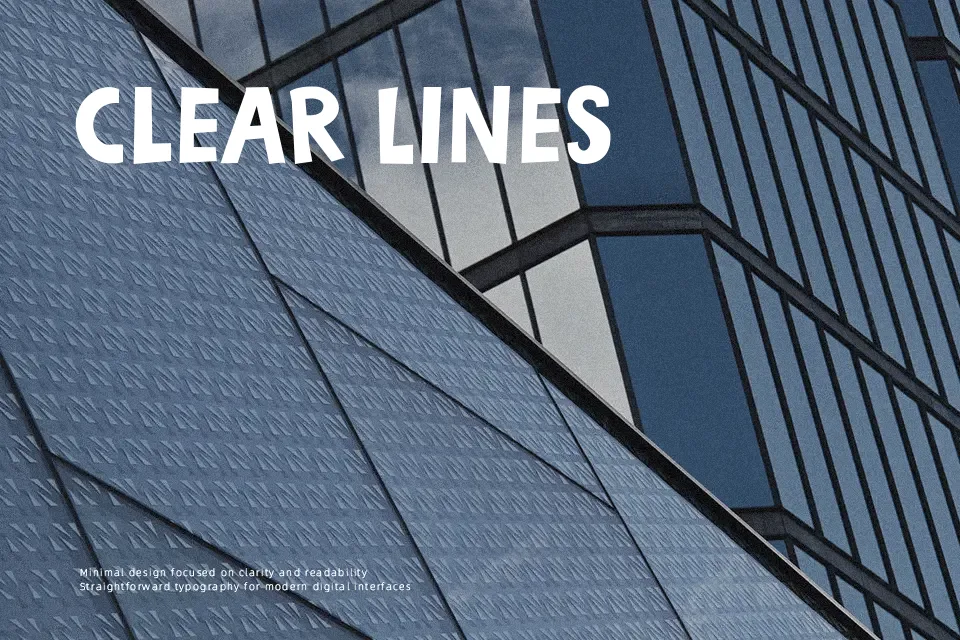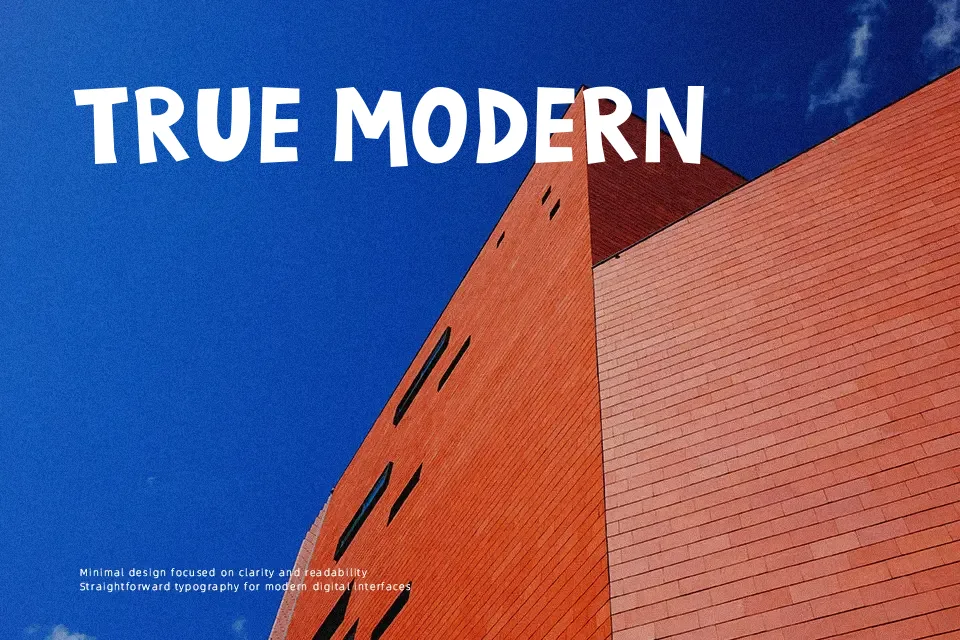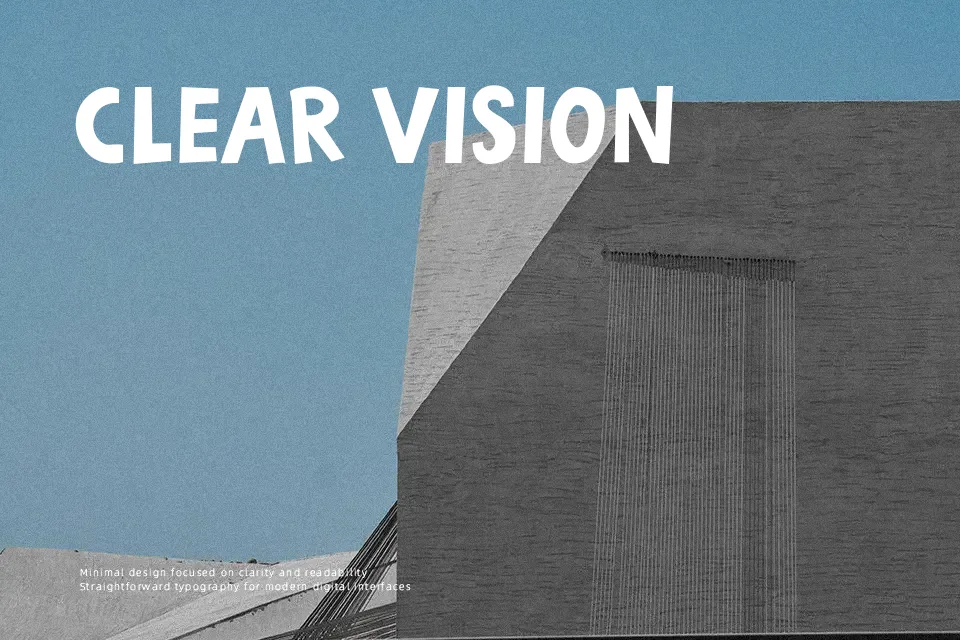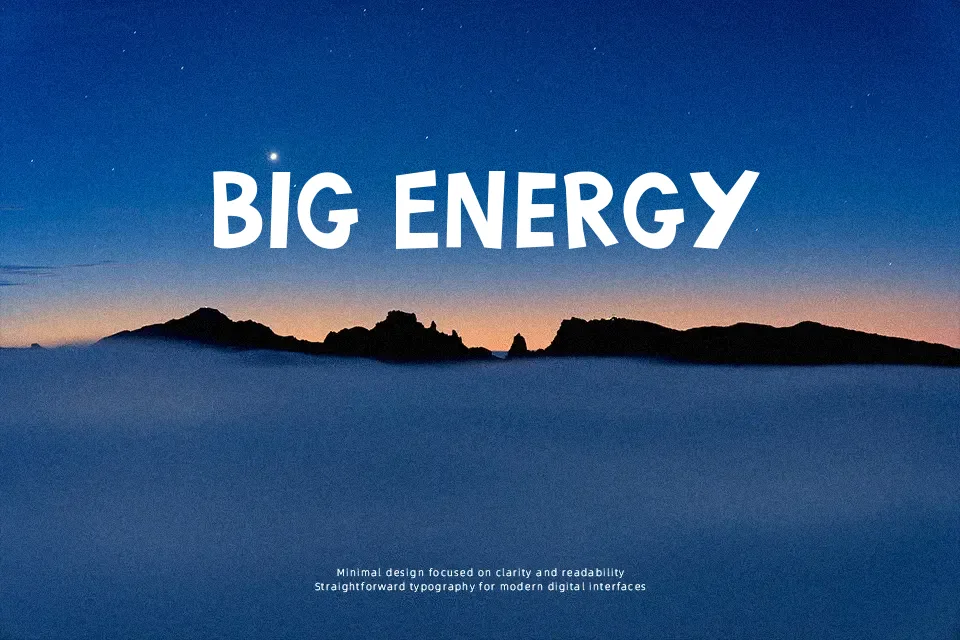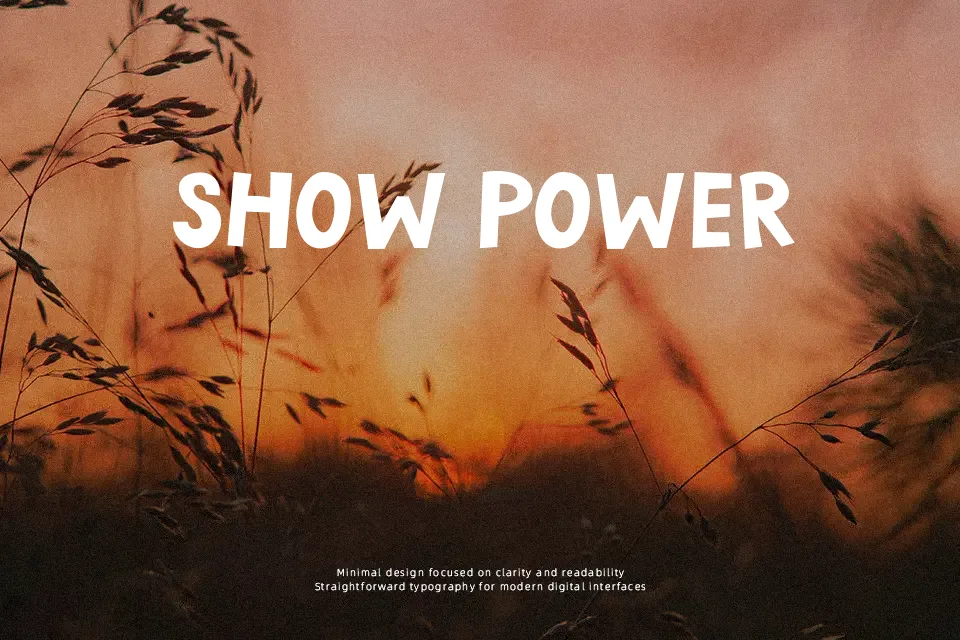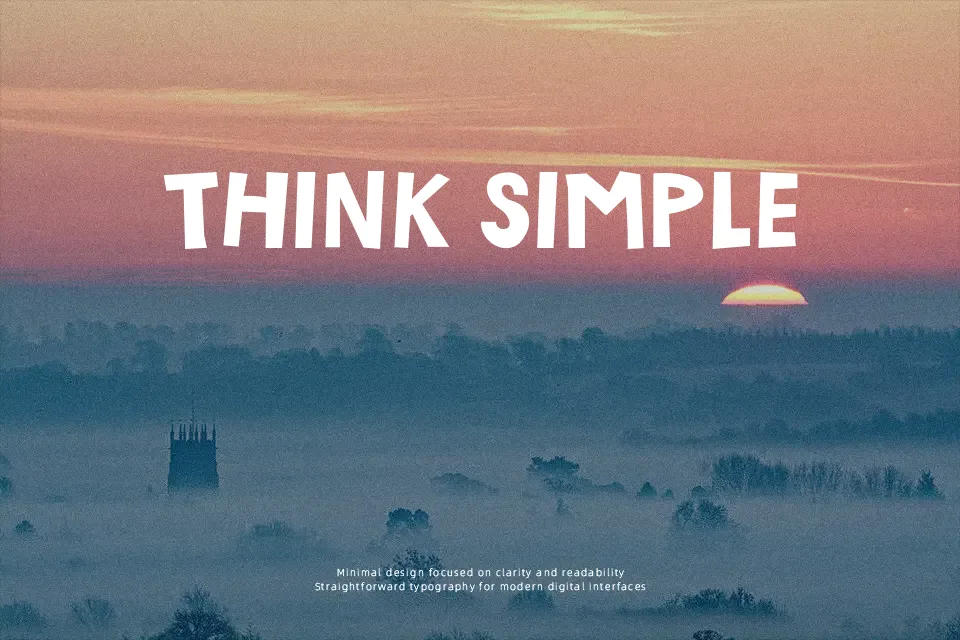
Autumn Rats Font
Designed by Carrot Rope
Drawn with jagged, uneven strokes and a loosely comic structure, Autumn Rats reads like handwriting scrawled under pressure. Each letterform carries a slightly chaotic weight distribution — not calligraphic, not brush — more like a marker dragged quickly across rough paper. This makes it well-suited for seasonal event posters, spooky-themed social graphics, and edgy product labels where the imperfect quality feels intentional. At display sizes, the roughness adds character; shrink it below 18pt and the irregular outlines start collapsing into visual noise. Not a font you’d reach for in editorial layouts or anywhere that demands readable, sustained text.
Best For:- Halloween event posters and seasonal headers
– Indie zine or underground publication titles
– Horror-themed packaging labels
– Sticker or patch designs with a lo-fi aesthetic
Not Ideal For:- Body text or paragraph-length content
– Corporate or professional branding
– Small-size applications (mobile UI, footnotes)
– Any context requiring clean, formal letterforms
Perfect for halloween, logo, and packaging, with a dark and decorative style.